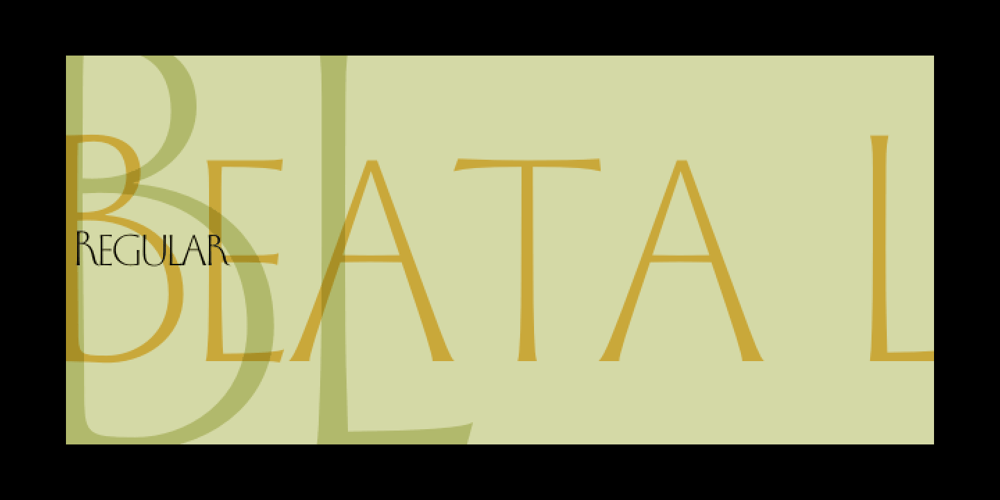
Beata LP Font Family was designed by Garrett Boge and published by LetterPerfect. Beata LP contains 1 styles and family package options. Beata is a delicate, attenuated design with elegant proportions, modeled on the fifteenth-century inscription by Bernardo Rossellino for the Tomb of Beata Villana in Santa Maria Novella, in Florence. The font, consisting of caps and small caps, was designed by Garrett Boge and Paul Shaw in 1997. Beata is part of the LetterPerfect Florentine Set.